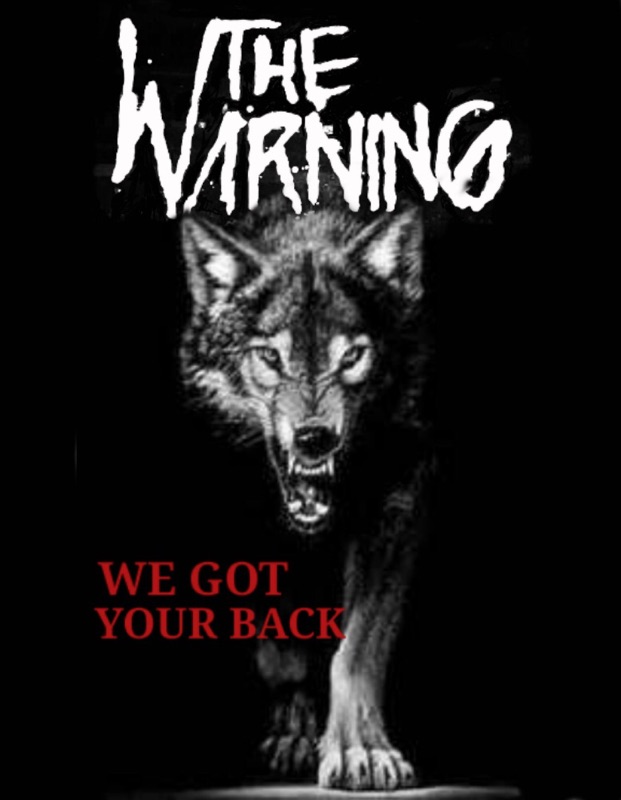
I am looking for the "THE WARNING" font to use with an image I created.  It's a cool font and I can not find it.  Free or commercial is fine.
Sorry, but I can't find any evidence that what you posted is a typeface.
Given the way it fits together, the fact that it is actually the logo of a three-woman rock band from Monterey, Mexico, and the fact that the two Ns don’t match one another, I'd say it’s hand-lettered, not typeset.
Forked Tongue is vaguely similar, as is Jackpot.